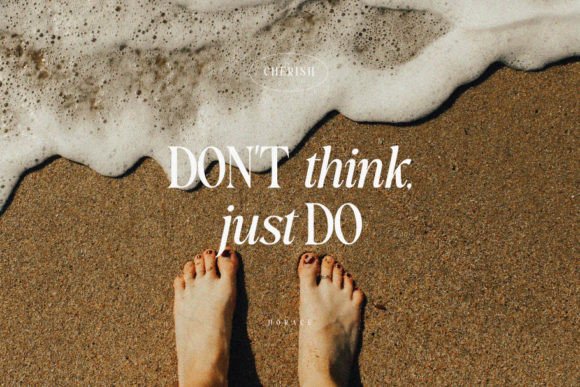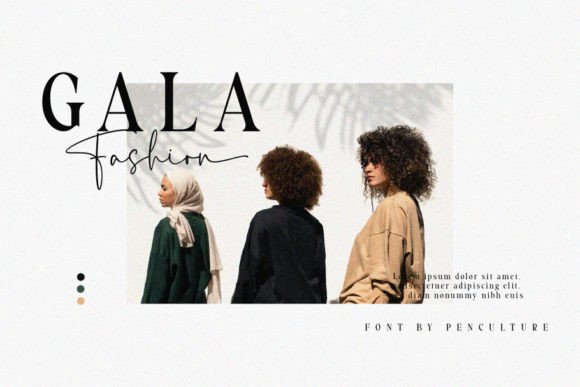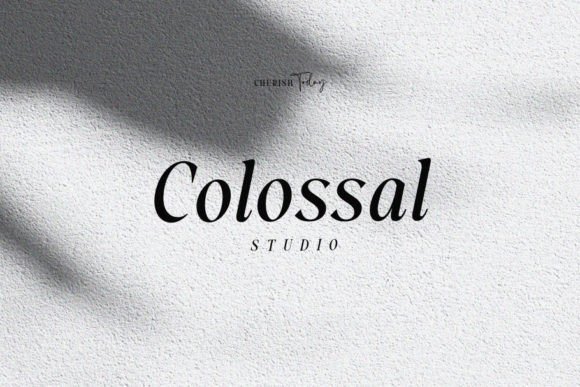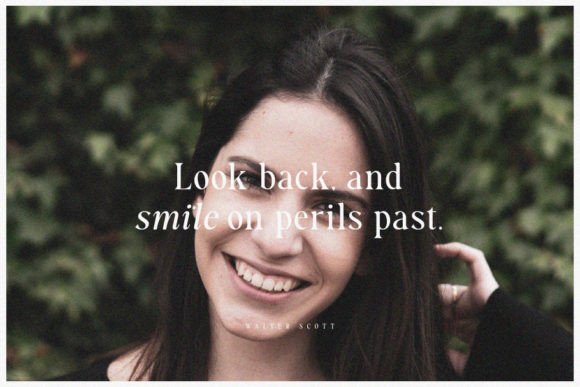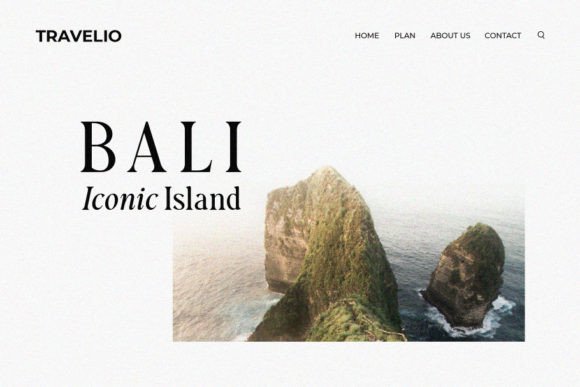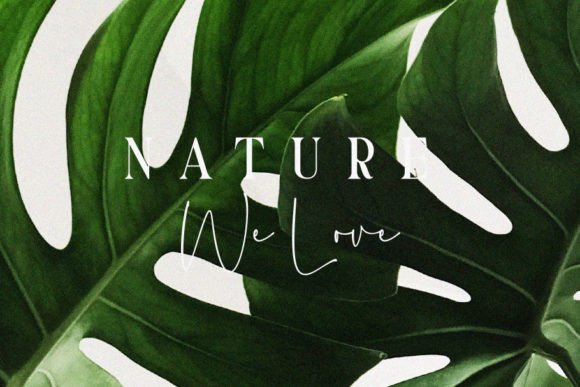
Cherish Today Font
Cherish Today is a cool and modern font duo (serif and script). Stylish, and graceful this font will definitely elevate the look of any of your beautiful creations while keeping them grounded and natural.